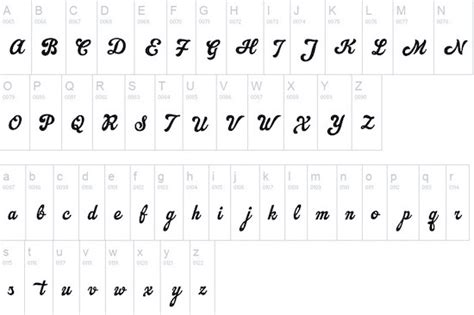
Create Dodgers-Themed Designs With Canva's Font Generator
Create Dodgers-Themed Designs with Canva’s Font Generator
Hey guys! Are you huge Los Angeles Dodgers fans, looking to spice up your designs with that iconic Dodger blue? Well, you’re in luck! This article dives deep into how you can use Canva’s font generator to create amazing Dodgers-themed graphics, whether you’re designing social media posts, creating custom merchandise, or just having some fun. We’ll explore everything from finding the perfect fonts to incorporating the team’s colors and logos. Get ready to transform your designs and show off your Dodgers pride! Let’s get started, shall we?
Finding the Perfect Dodgers Font: The Key to Authentic Design
Okay, so the first step in creating any Dodgers-themed design is, naturally, finding the right font . The font is the heart and soul of your design, and getting it right is super important! The official Dodgers font is a specific custom font. While you won’t always find it directly in Canva’s font library, don’t worry, there are some clever ways around this. The goal is to capture that classic Dodgers look and feel, and we’ll show you how. We’ll look at a couple of options, including finding fonts that are similar to the official one and how to upload custom fonts to Canva. This way you can get that perfect look for your designs! It is all about the details, right?
First, let’s talk about finding similar fonts. If you can’t get the official Dodgers font, the next best thing is to find fonts that have a similar style. Look for fonts with bold, rounded letterforms, just like the iconic Dodgers logo. Fonts that have a classic, vintage feel often work well. You can explore Canva’s font library and search for keywords like “baseball,” “sport,” “retro,” or “vintage.” Try out different fonts and see which ones best capture the Dodgers’ spirit. It is all about experimentation, guys! Don’t be afraid to try different combinations and see what works best for your design. Remember that the goal is to create something that looks amazing and feels authentic. You might discover some hidden gems along the way! Be sure to also consider the overall design. Does the font match the theme of your project? Does it go well with other elements, such as colors and images? These are important details to think about! Don’t worry too much about perfection. The more you explore, the better you will get, and the faster you will learn.
Also, another essential is to think about layout and composition . Canva’s drag-and-drop interface makes it easy to create visually appealing layouts. Consider using a grid or layout template to arrange your elements effectively. Don’t be afraid to experiment with different layouts and arrangements until you find something that you are happy with. Pay attention to the balance and flow of your design. Ensure that the text and images are placed in a way that is easy to read and understand. With a little practice, you will be creating beautiful designs in no time, guys!
Step-by-Step Guide: Creating a Dodgers-Themed Graphic
Alright, let’s get down to the nitty-gritty and walk through how to create a Dodgers-themed graphic in Canva! This step-by-step guide will help you create a social media post, a poster, or whatever design you have in mind. I hope you guys are as excited as I am!
First, choose a template or create a new design. Start by opening Canva and selecting the type of design you want to create. For instance, if you’re making a social media post, choose the social media post template. You can also start with a blank canvas. This is a good choice if you have a specific vision in mind for your design. Next, choose the dimensions that fit your needs. Canva has templates for various platforms, and you can also create custom sizes. Make sure you have the dimensions correct before you start, as this will help you save a lot of time and effort in the long run!